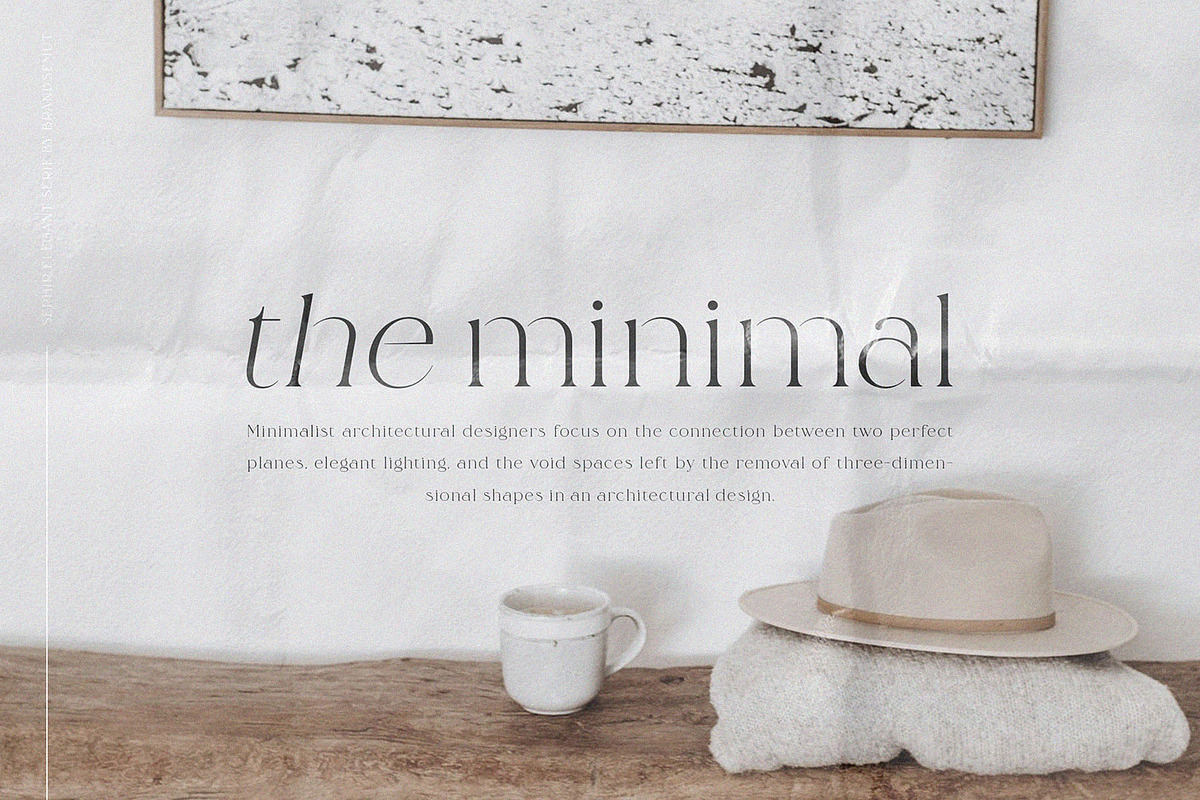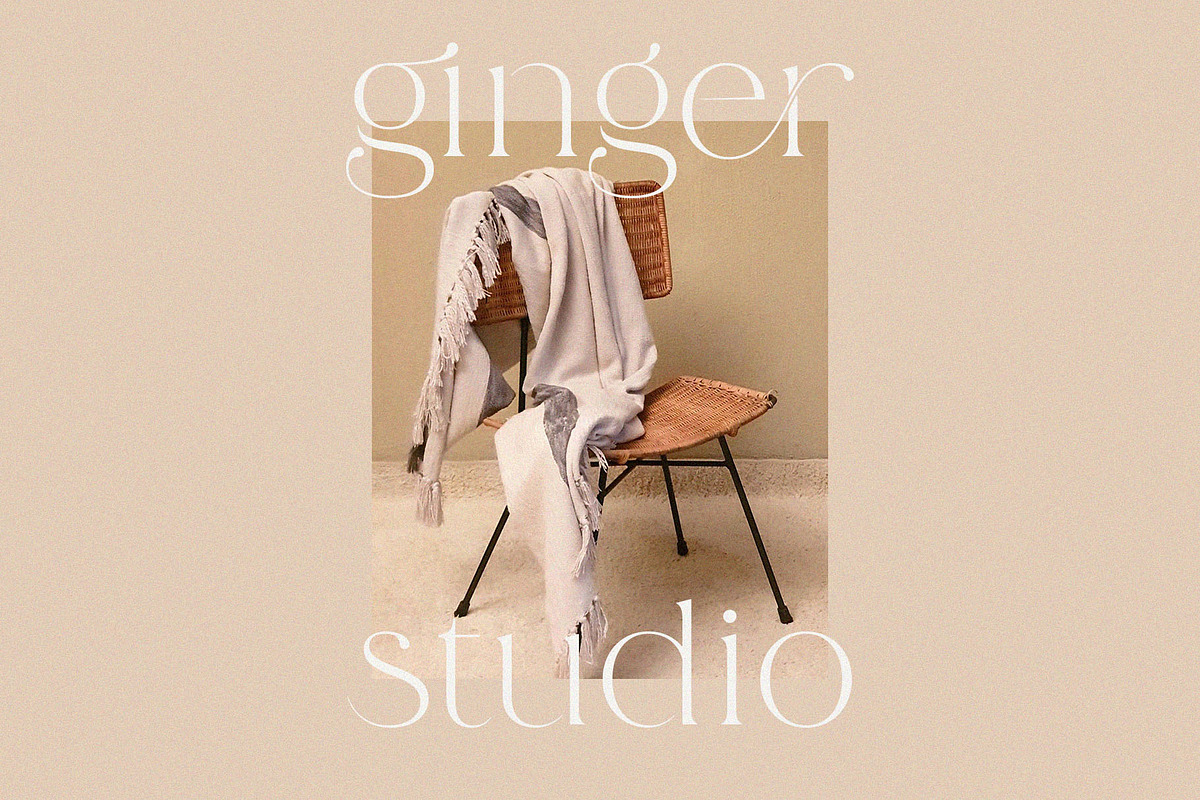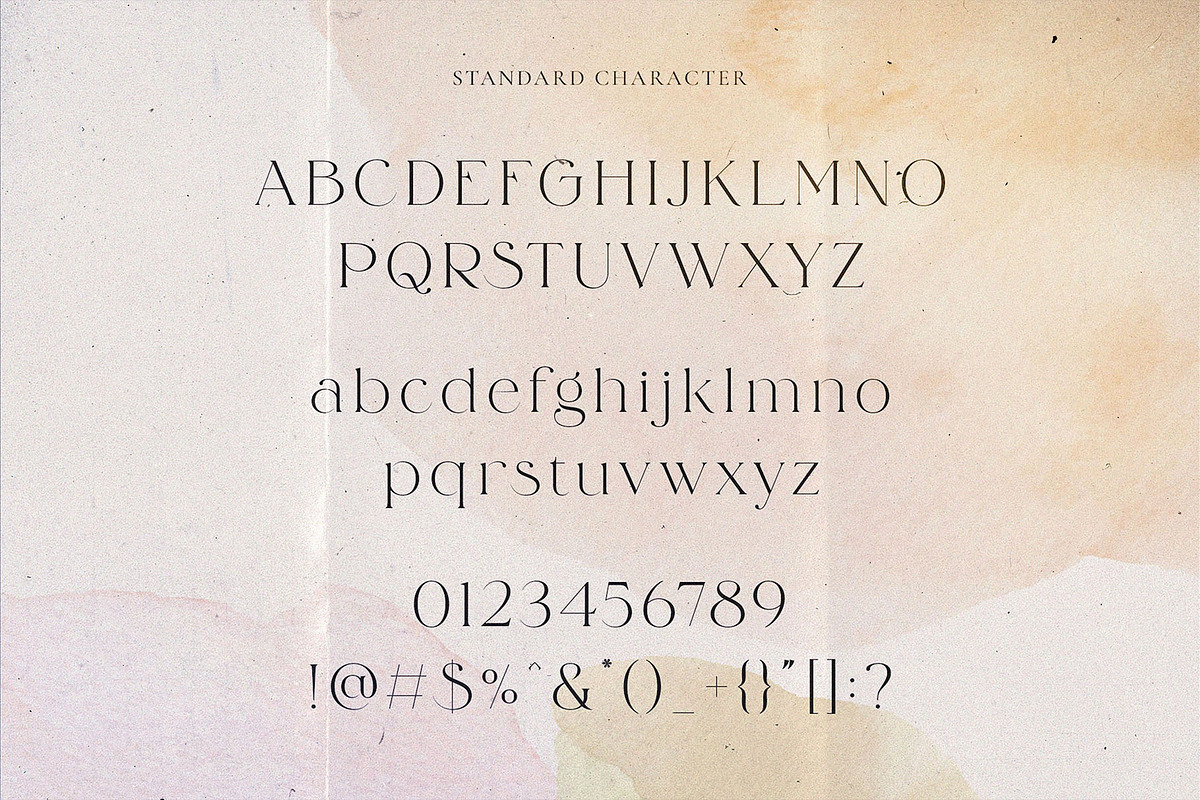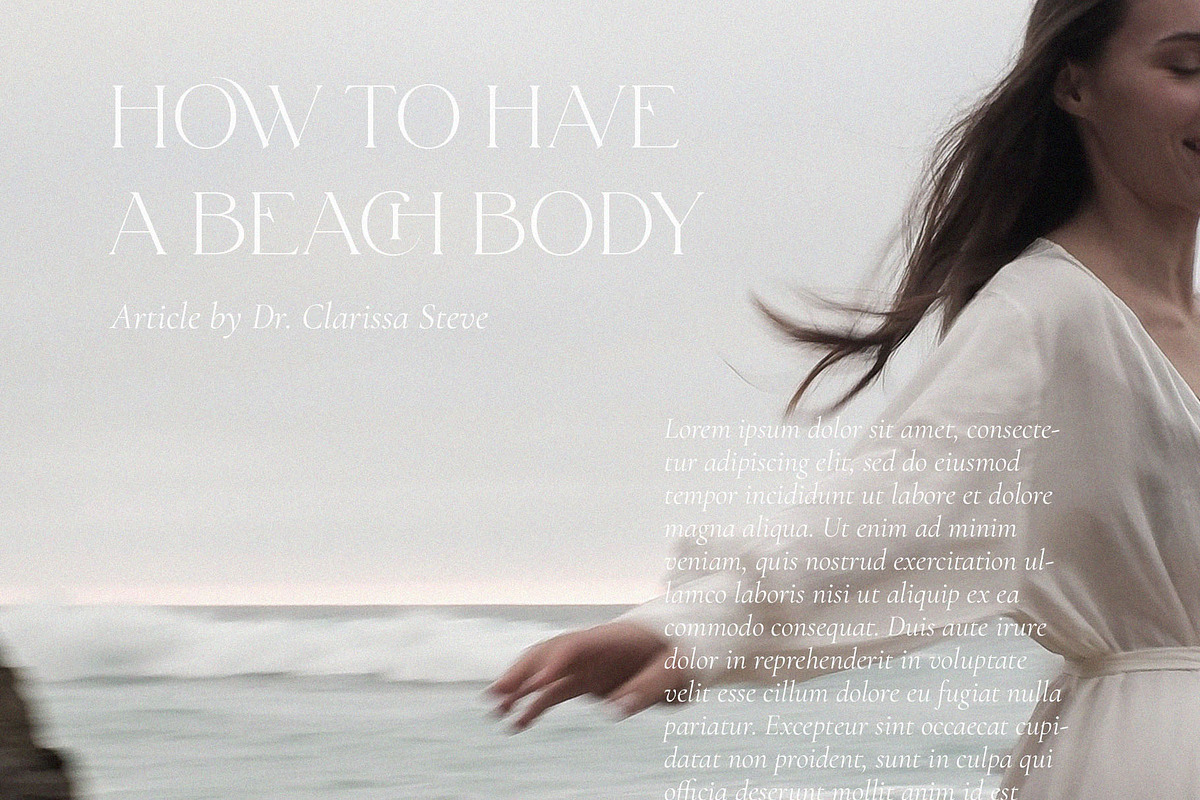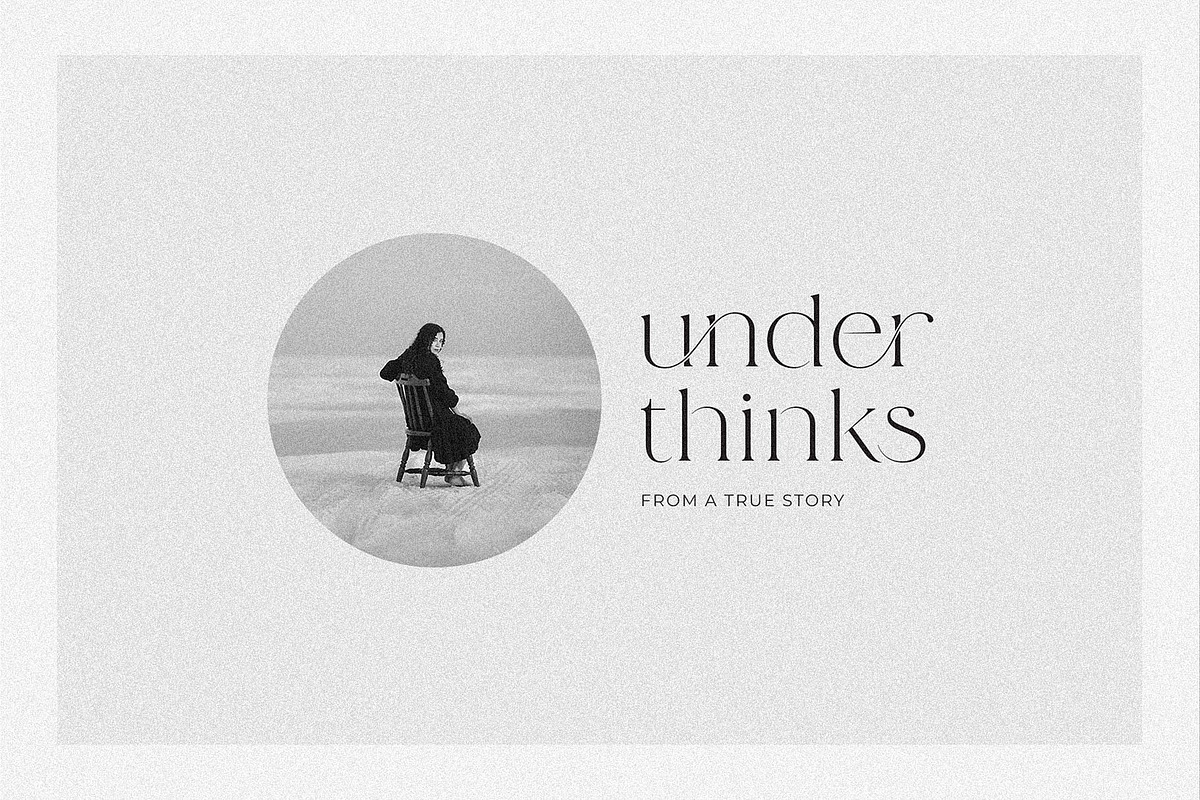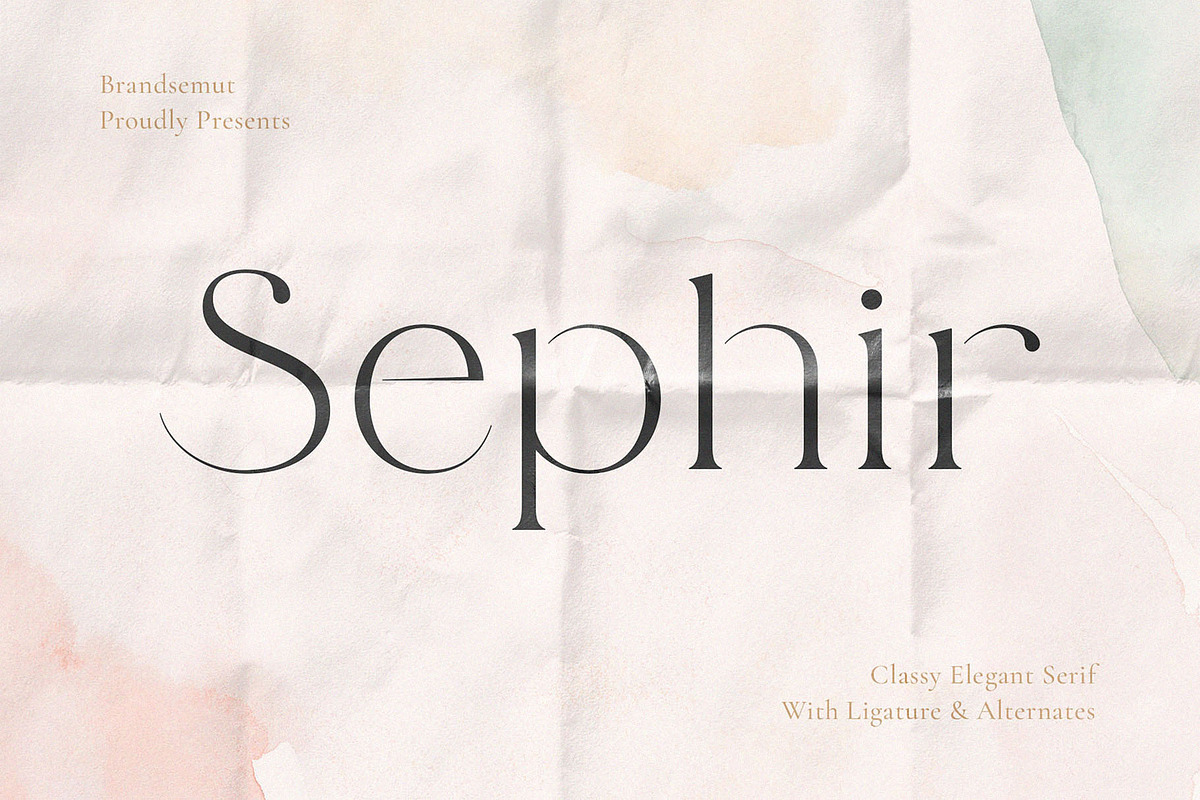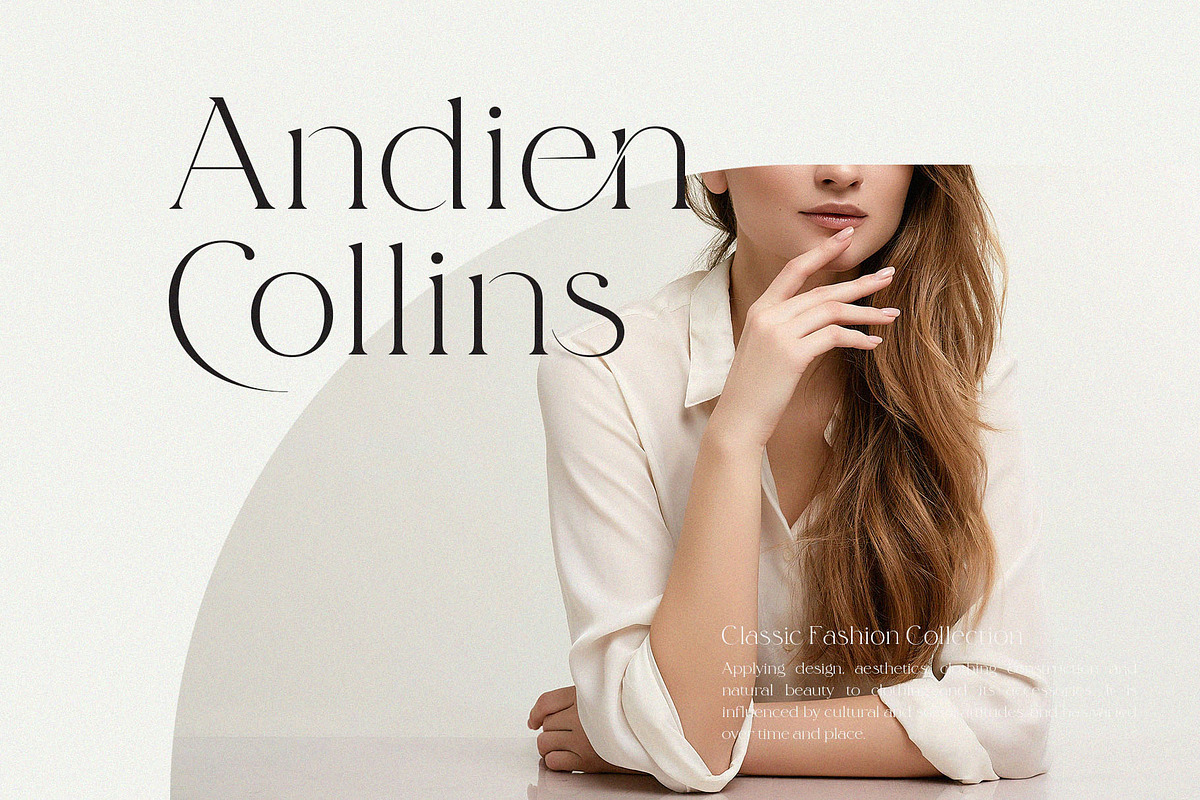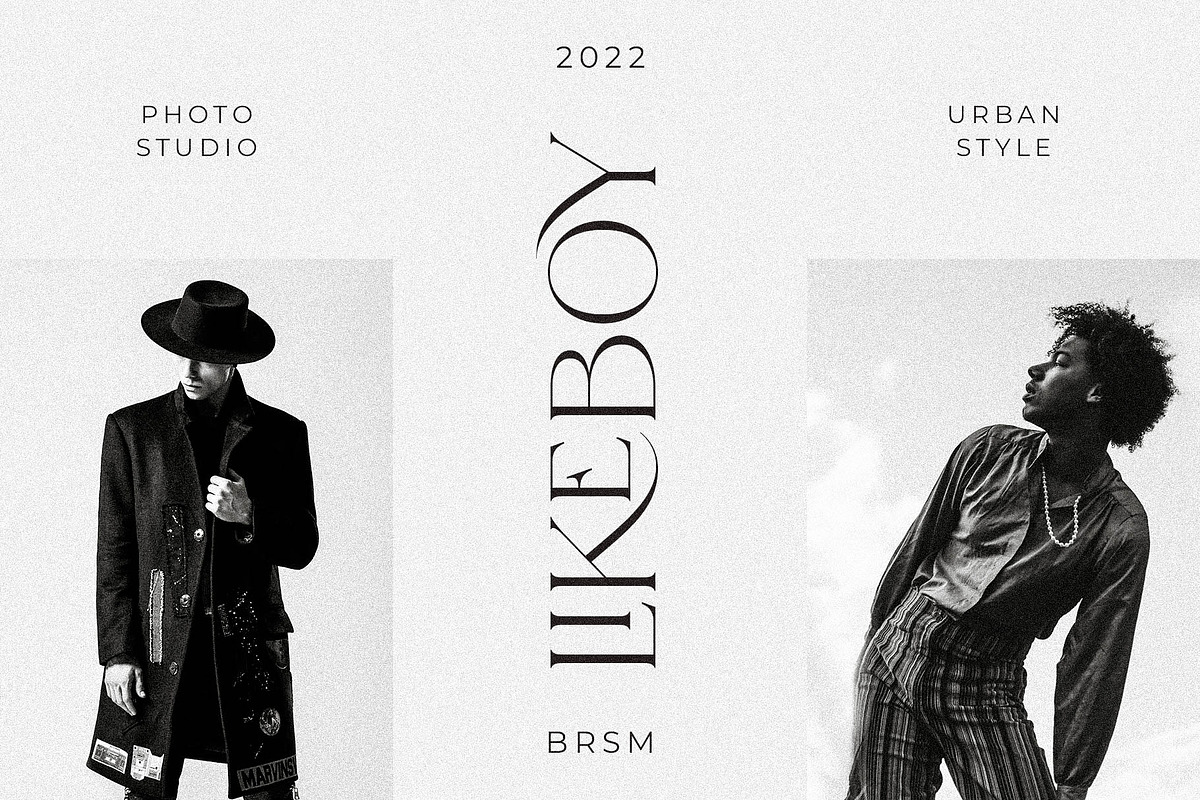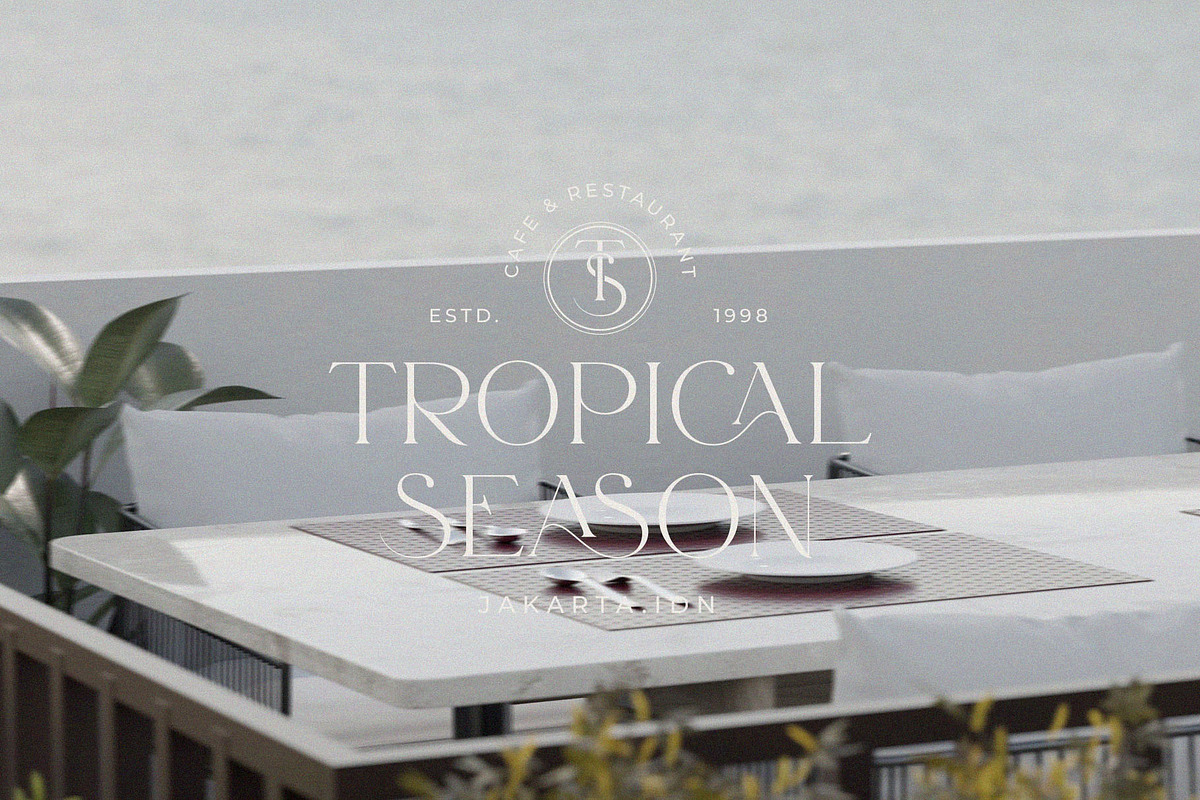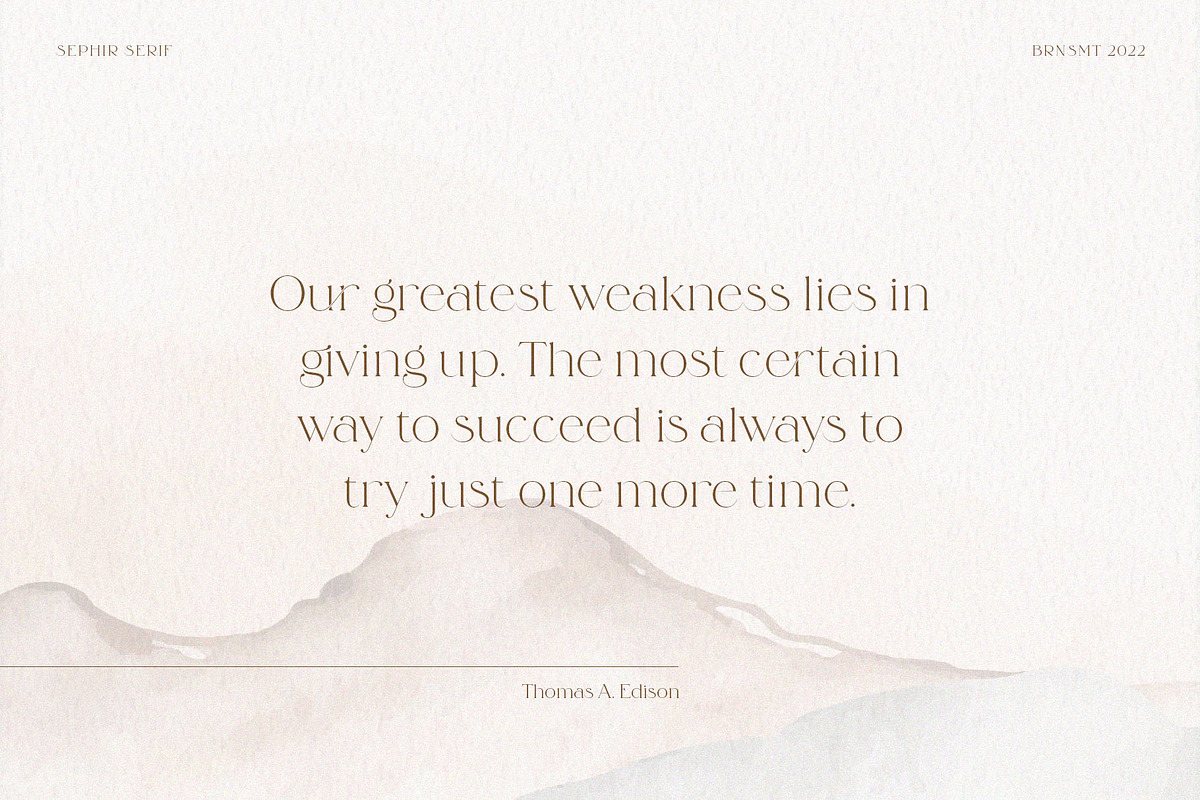
Sephir || Classy Elegant Serif
Introducing Sephir Classy Elegant Serif. Sephiris a modern, elegant and classy serif font, best used as a display for headings, logos, branding, magazines, product packaging and invitations. Sephir come with clean lines and smooth curves give any project an extra touch of class.